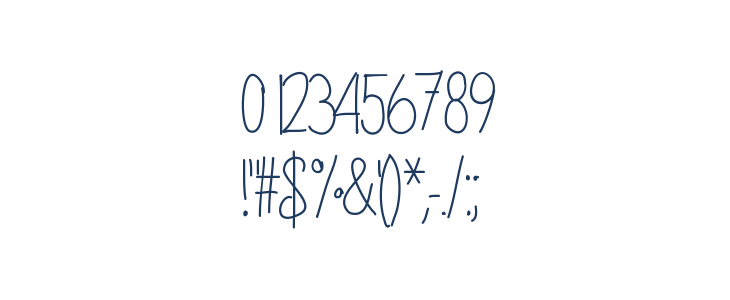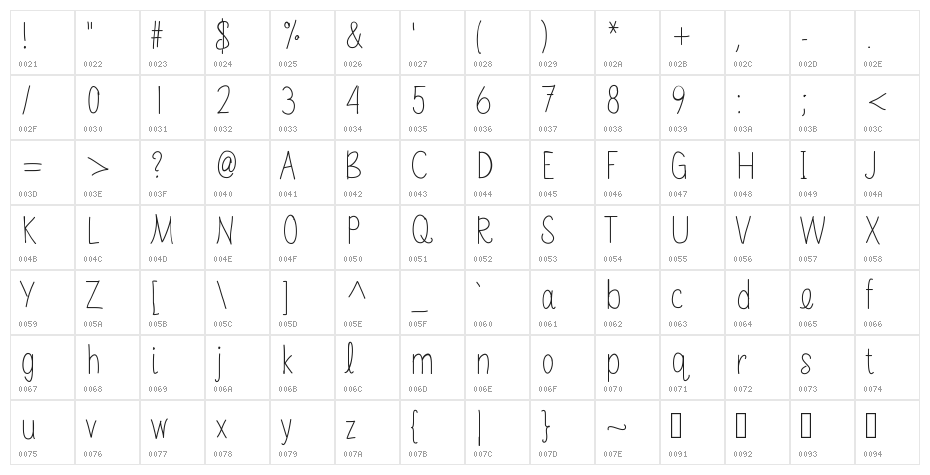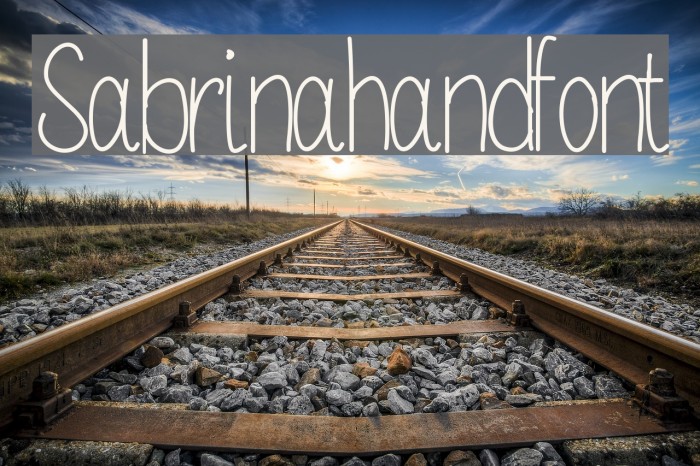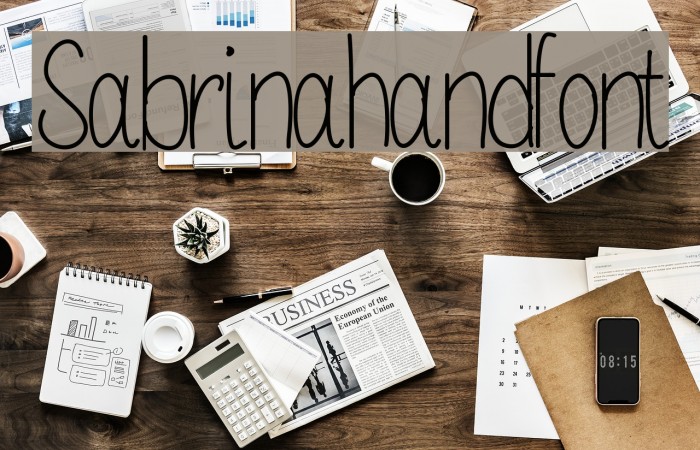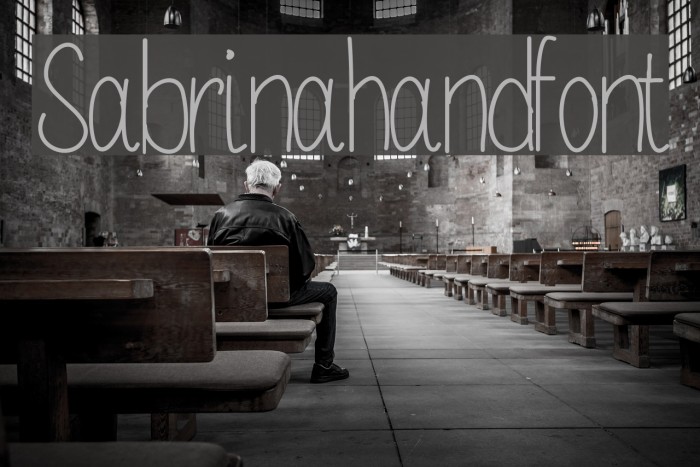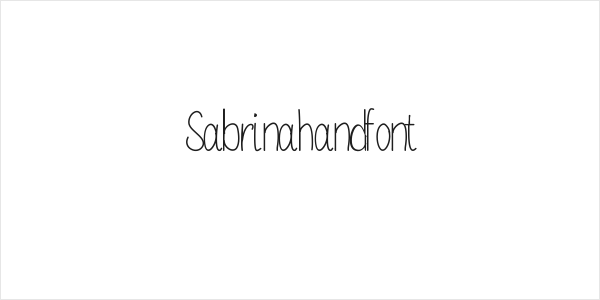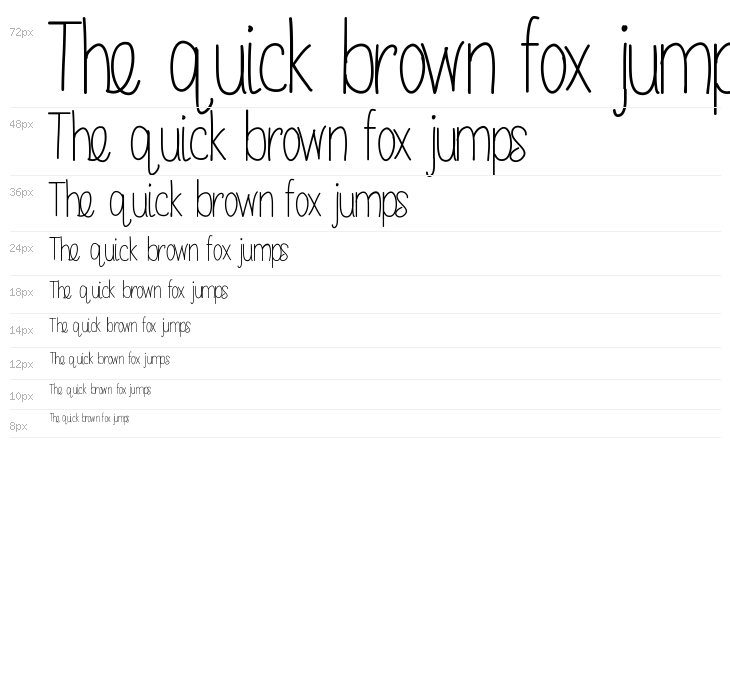
Sabrinahandfont Font
Sabrinahandfont Description
This font features a playful, handwritten style with a casual and approachable feel. The letters are tall and slender, with a slight slant that adds a dynamic and lively touch. The strokes are consistent in width, giving it a clean and uniform appearance. The uppercase letters are slightly taller than the lowercase, maintaining a cohesive look. The numbers and special characters follow the same style, ensuring a harmonious overall design. This font is perfect for projects that require a personal and friendly touch, such as invitations, greeting cards, or children's books.
Overall StyleCasual
Proposed ProjectsIdeal for invitations, greeting cards, children's books, and personal branding.